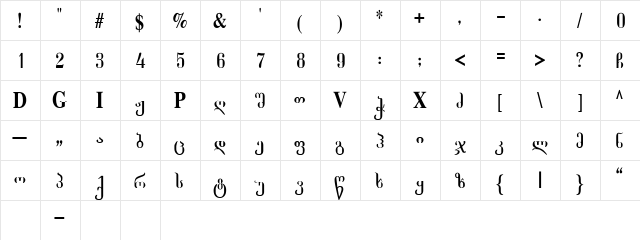
Tinano Regular
Design Context for Tinano Typeface
Tinano offers clean, dependable letterforms without strong stylistic allegiance, making it a practical choice for designers who need flexibility.